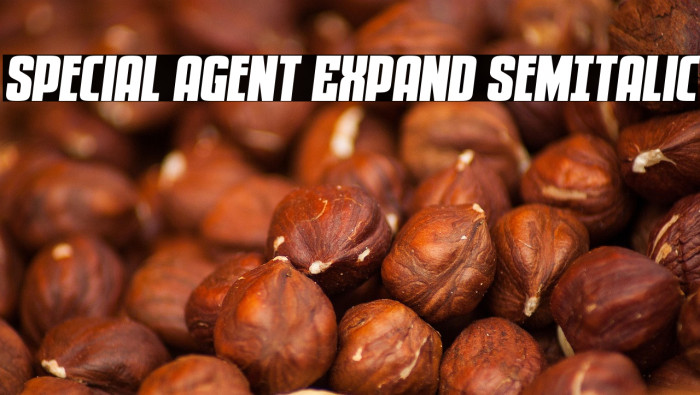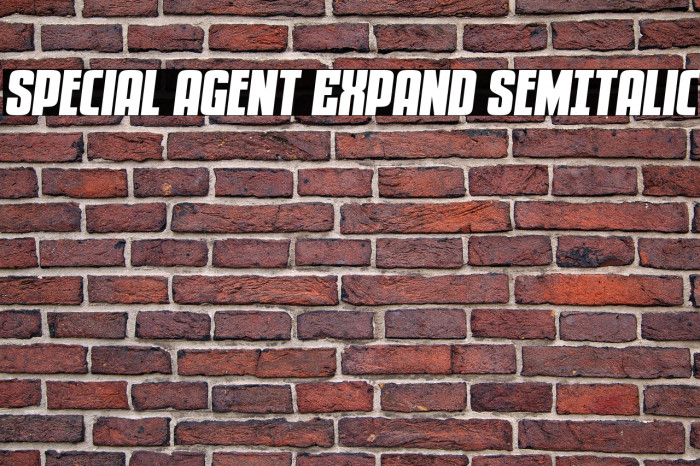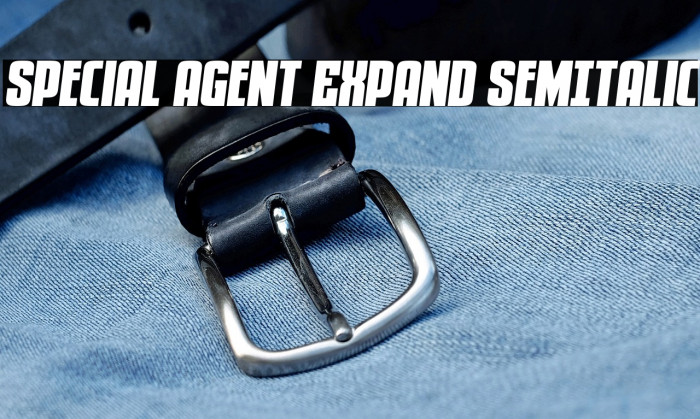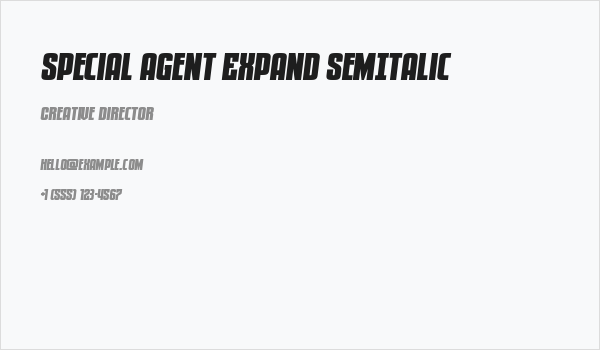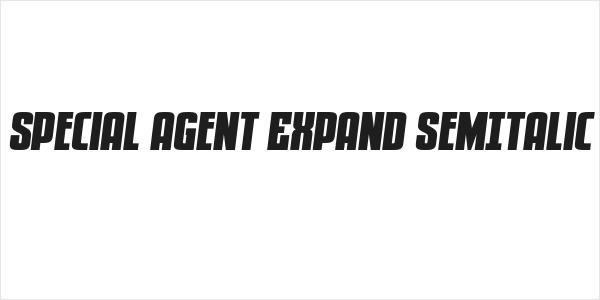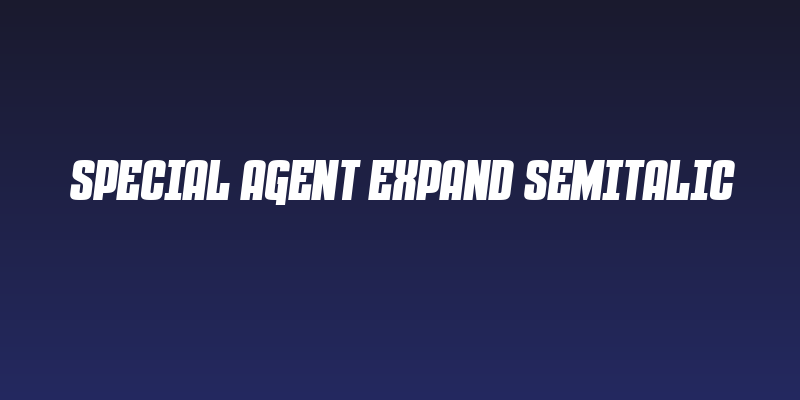
Special Agent Expand SemItalic Font
Special Agent Expand SemItalic Description
This font features bold, expansive characters with a distinct slant, giving it a dynamic and energetic appearance. The uppercase letters are strong and commanding, while the lowercase letters maintain a consistent style that complements the uppercase. The numbers are equally bold and clear, ensuring readability. Special characters are designed with the same boldness, making them stand out effectively. The overall design is modern and impactful, suitable for making a strong visual statement.